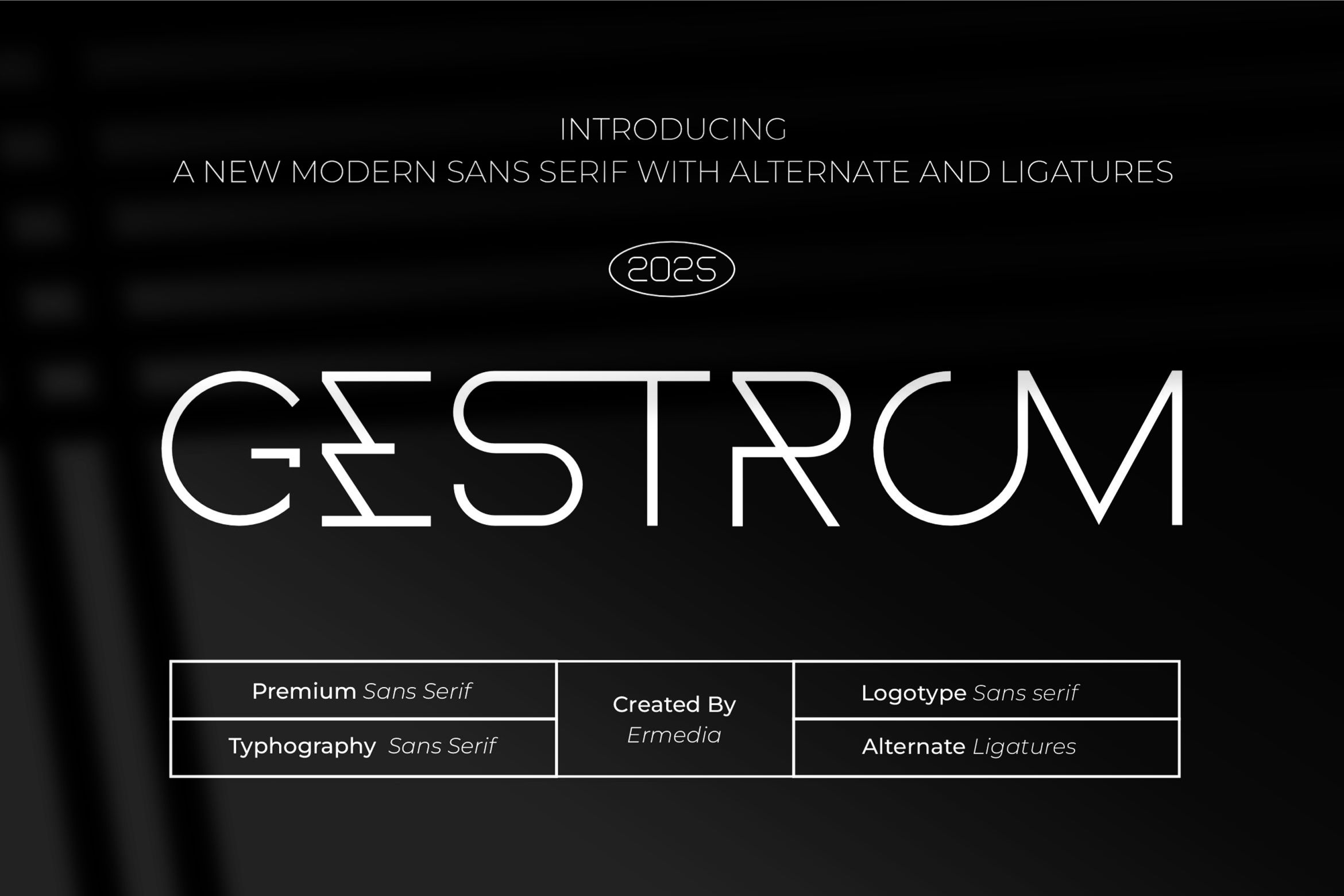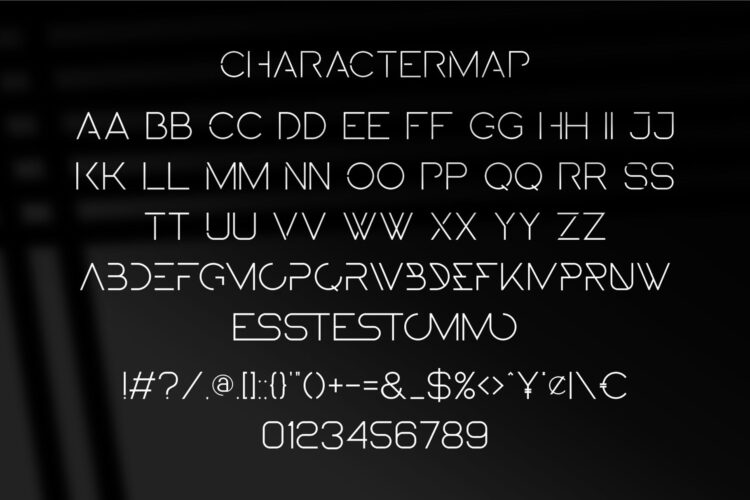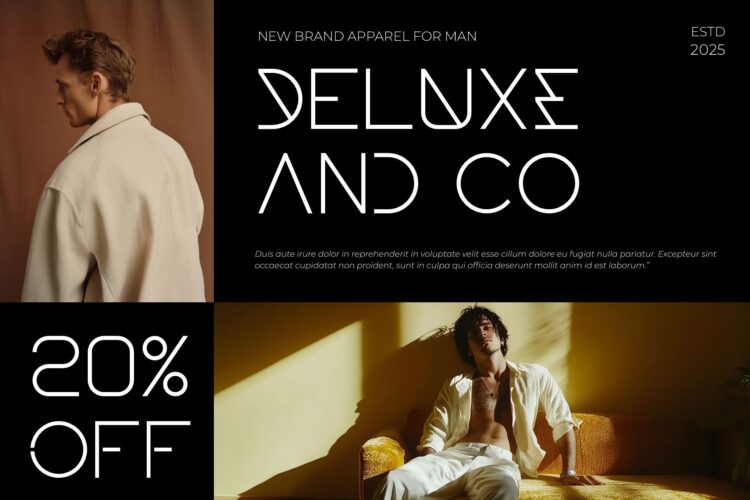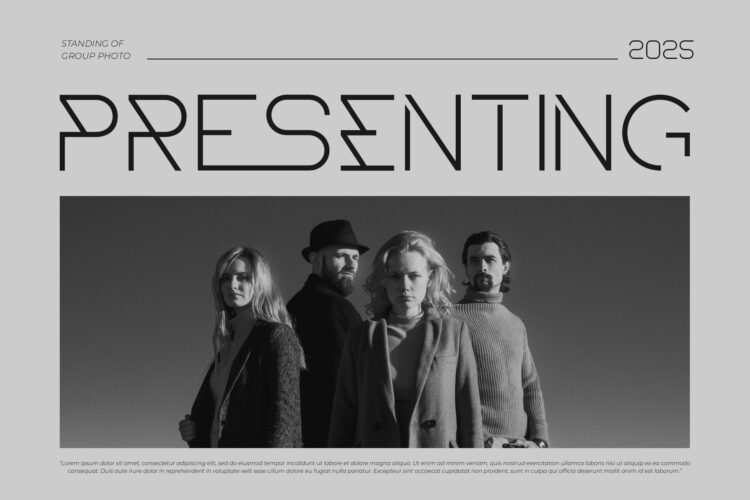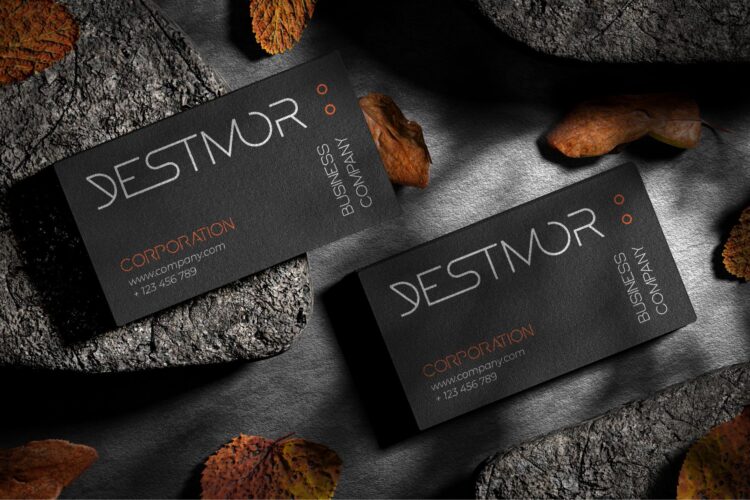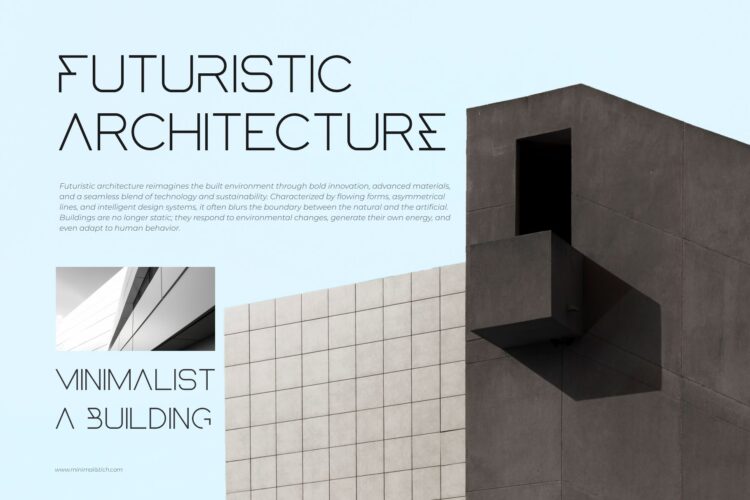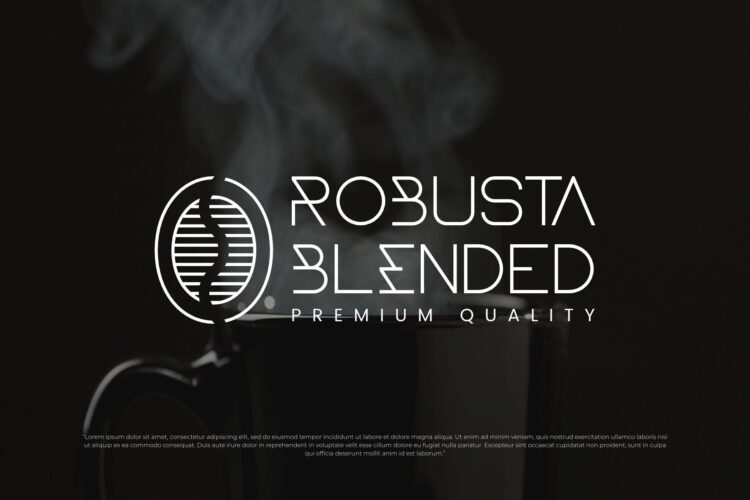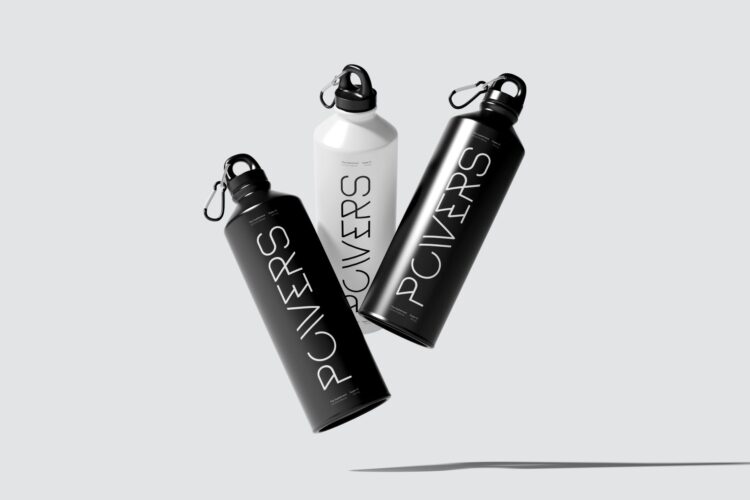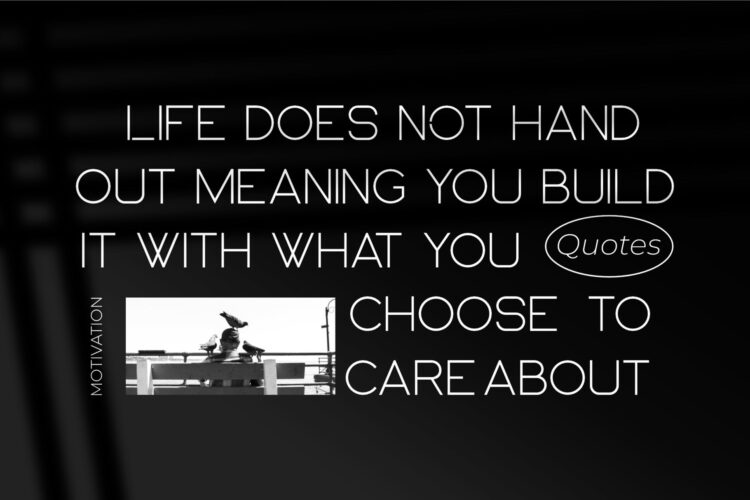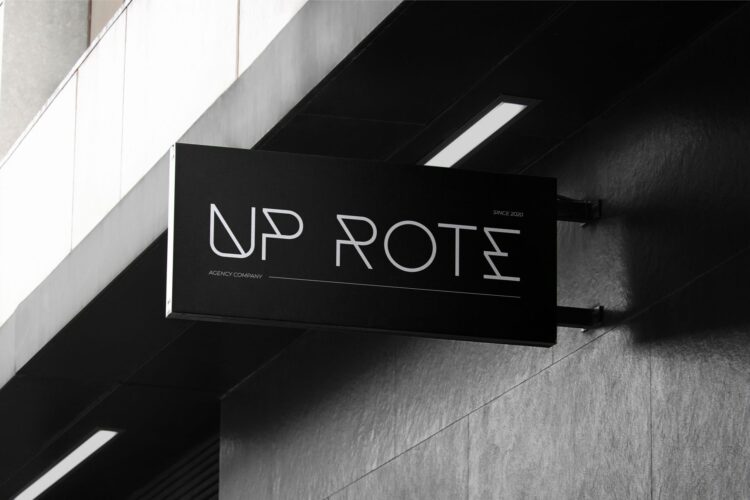
Gestrom
Gestrom Monoline Sans Serif is a modern and futuristic font type for all branding and logo designs. This modern and futuristic Sans Serif font has a beautiful character. This font is suitable for invitation card designs, cool logos, movie titles, movie names, business cards, book titles, brand names, and various other designs. Gestrom Monoline Sans Serif is a smooth sans serif font that exudes sophistication and the moment. Its stylish ligatures and alternates make this font a perfect partner for any project.
Gestrom || Modern Sans Serif Font